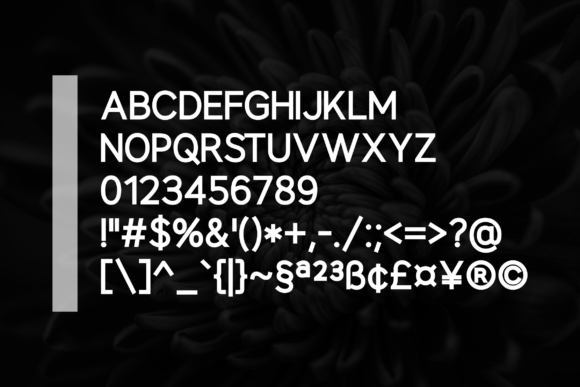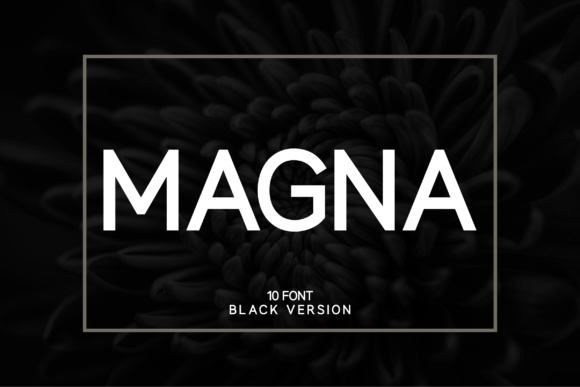
Introduction to Magna Black Font
Magna is a gorgeous sans serif font with an incredibly minimalist and modern vibe.
It will look beautiful in quotes, logos, invitations, magazines, web, and more With ten weights (thin, light, extra light, regular, medium, semi bold, bold, extra bold, black, extra black), it’s easy to use in multiple contexts.
Key Features of Magna Black Font